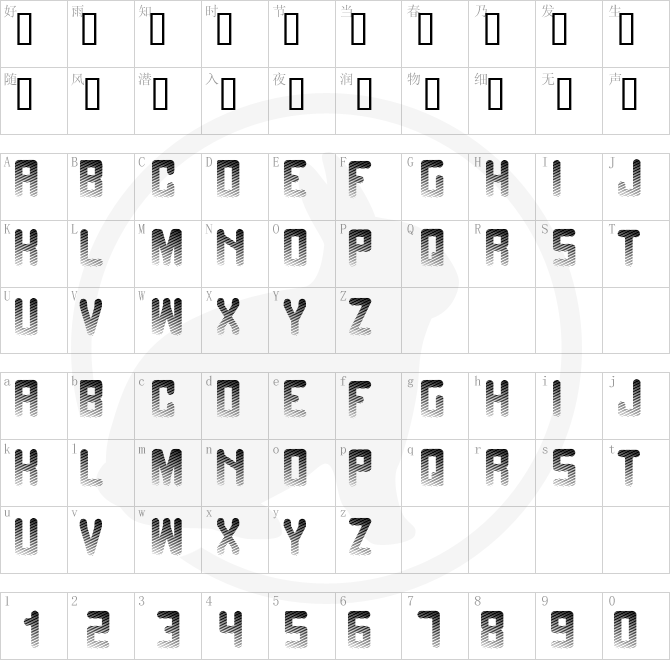
- Font Name:Fade to grey
- Subfamily:Fade to grey
- Full Name:Fade to grey
- PostScript:Fadetogrey
Fade-to-grey.ttf is a very beautiful artistic font, Fade-to-grey.ttf is widely used in the design and printing of various books and pictures,Fade-to-grey.ttf has a strong visual impact,Fade-to-grey.ttf is a commonly used font in newspapers, magazines and books, and is used in posters, e-commerce Poster design, store design, logo design, font design and other fields.Fade-to-grey.